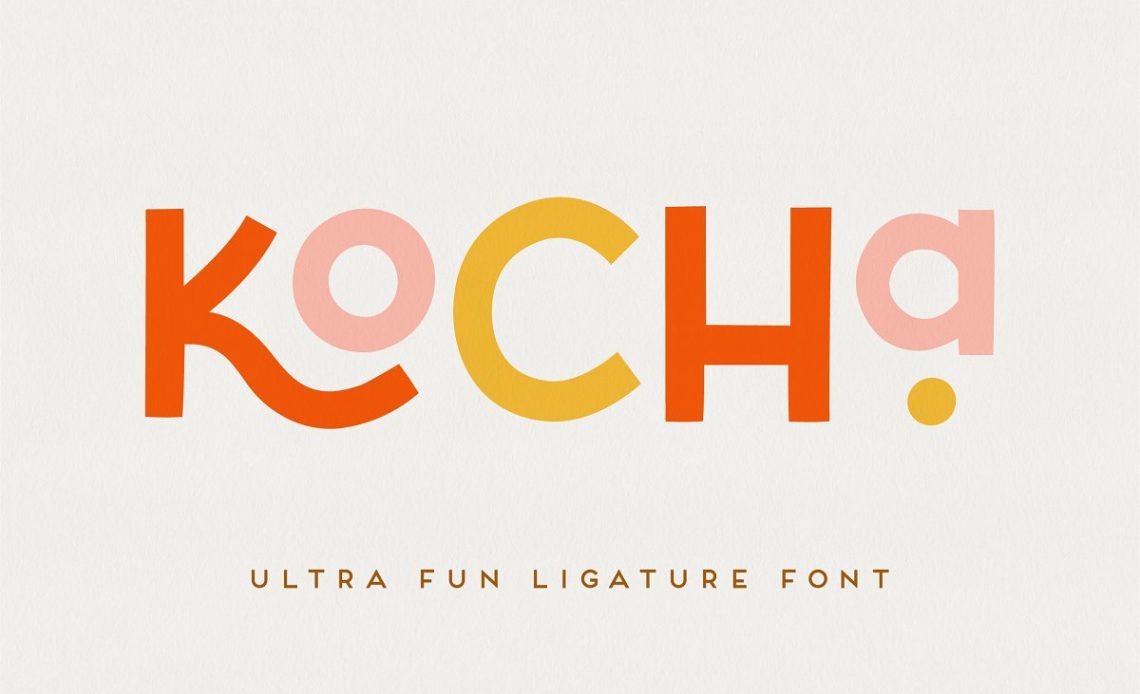
Introducing Kocha, the playful ligature font designed by Monika that will add a touch of charm and warmth to any project. This hand-drawn sans serif font is perfect for creating logos, greeting cards, posters, packaging, and so much more.
Kocha is a font that is created with love and care. It is kerned to perfection, making it a breeze to use. The font family comes with two variations: Kocha Clean and Kocha Rough, giving you the flexibility to choose the perfect one for your project.
One of the most exciting things about Kocha is its stylistic alternates for uppercase, lowercase, and numbers. This feature adds a unique touch to your designs and allows you to create something truly exceptional. With plenty of ligatures, you can easily create beautiful letter combinations that flow seamlessly together.
Multilingual support is another fantastic feature of Kocha, making it the perfect choice for international designers. Accented characters are included, ensuring that your designs look great in any language.